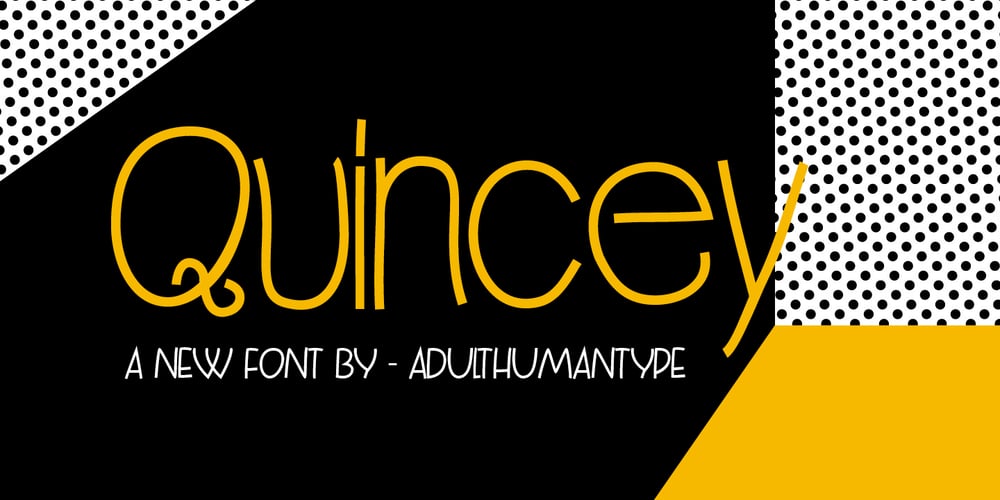
Quincey Font Family was designed by published by AdultHumanMale. Quincey contains 2 styles and family package options. Quincey is a display font with the feel of old style signpainter’s works with a hint of hand drawn elements too. It has over 350 glyphs and several variations on the standard alphabet with all those €xtra pesk¥ foreign characters too. Some extra Glyphs in there too. It is available in 2 weights regular and medium.